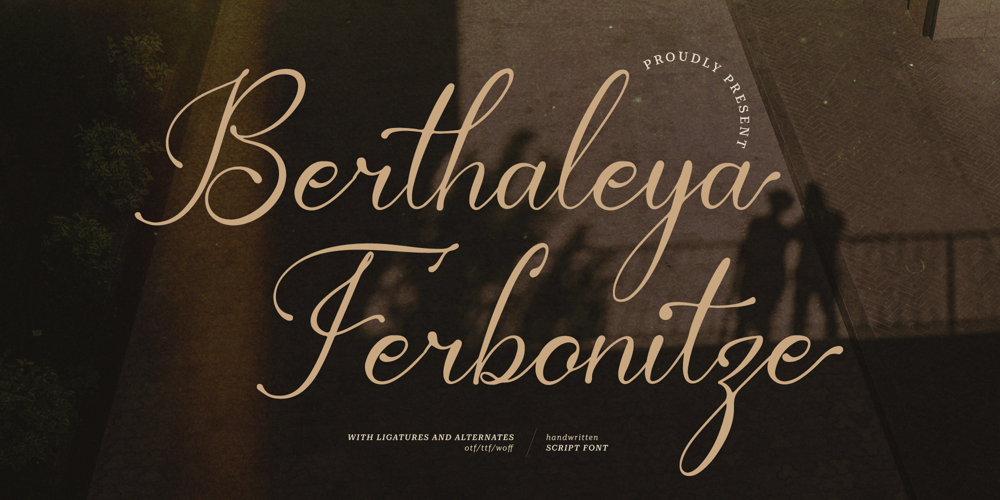
Berthaleya Ferbonitze
Berthaleya Ferbonitze font
Berthaleya Ferbonitze Font Family was designed by Dede Nugraha and published by Denustudio. Berthaleya Ferbonitze contains 2 styles and family package options. Berthaleya Ferbonitze | Calligraphy Script, from Denustudios, suitable for any projects such as: logos, branding projects, homeware designs, product packaging, mugs, quotes, posters, shopping bags, t-shirts, book covers, name card, invitation cards, greeting cards, label, photography, watermark, special events, and all your other lovely projects that need a beautiful script taste. ===============================================================What’s Included : Web Font Standard glyphs Alternate and Ligature Works on PC & Mac Simple installations Accessible in the Adobe Illustrator, Adobe Photoshop, Adobe InDesign, even work on Microsoft Word and Other Software. PUA Encoded Characters – Fully accessible without additional design software. Fonts include multilingual support